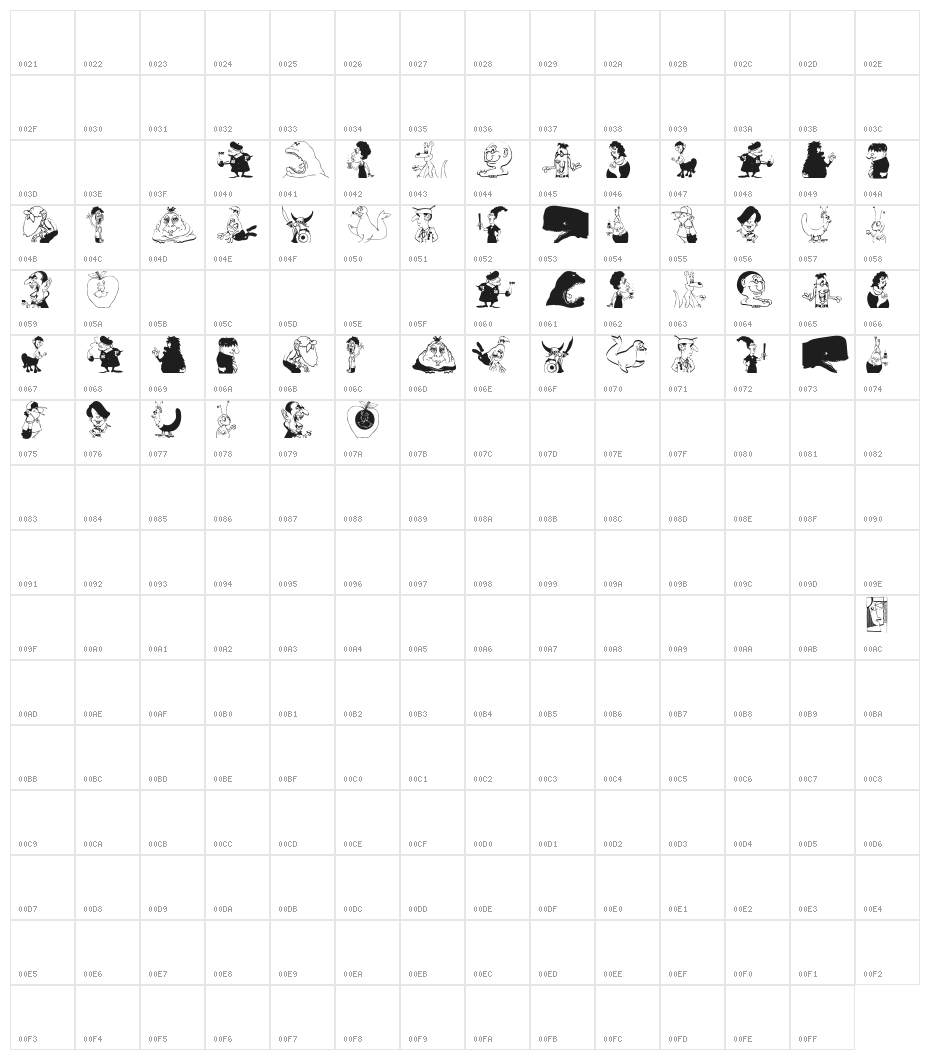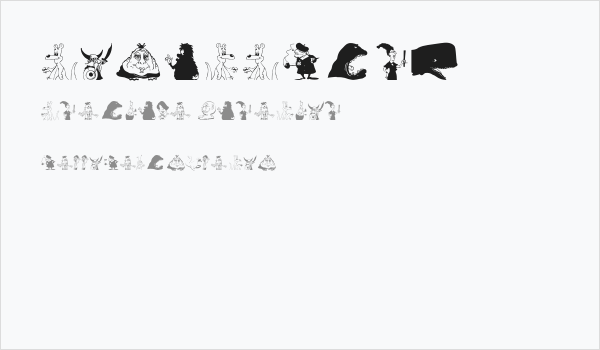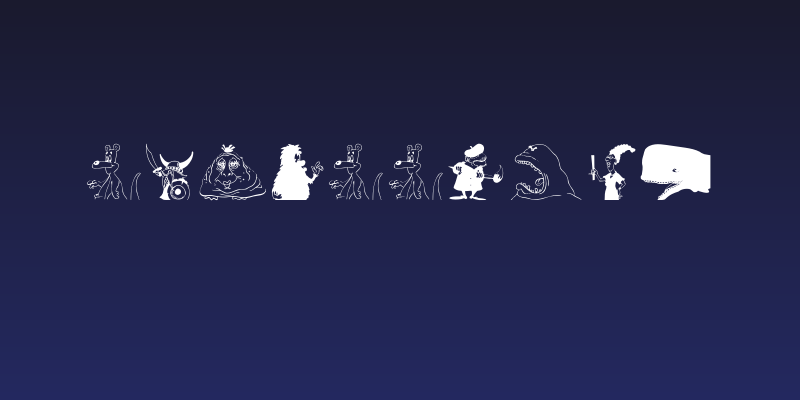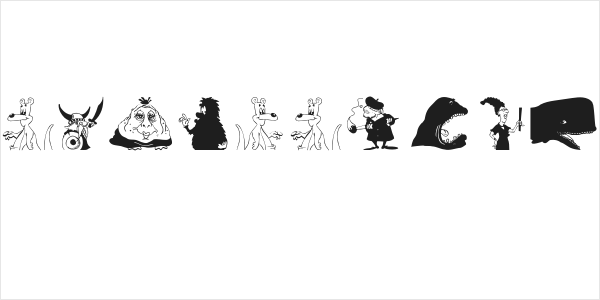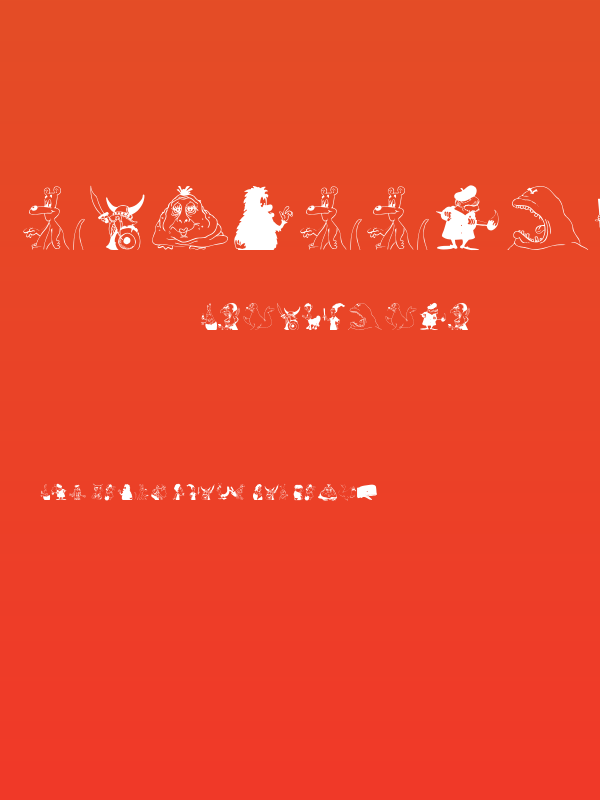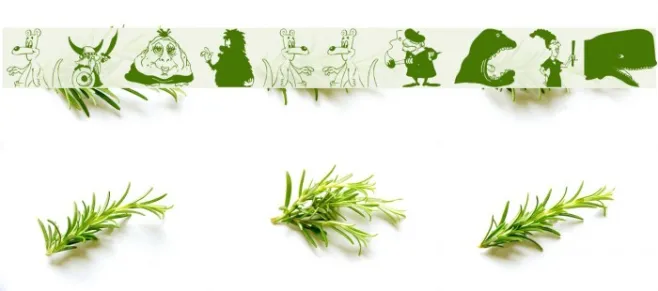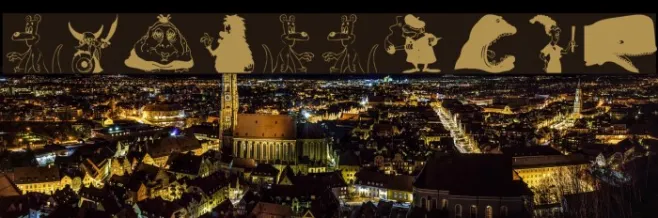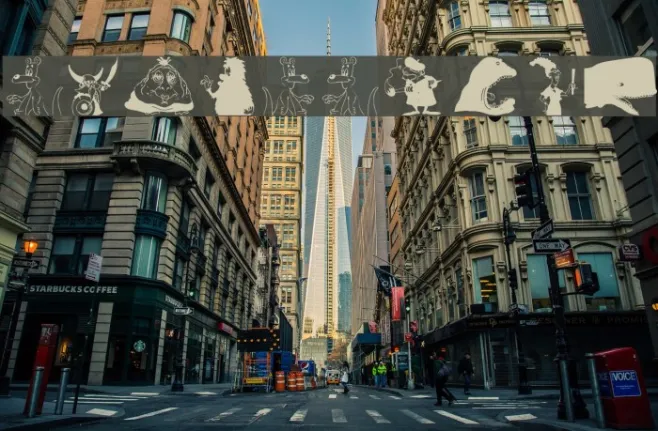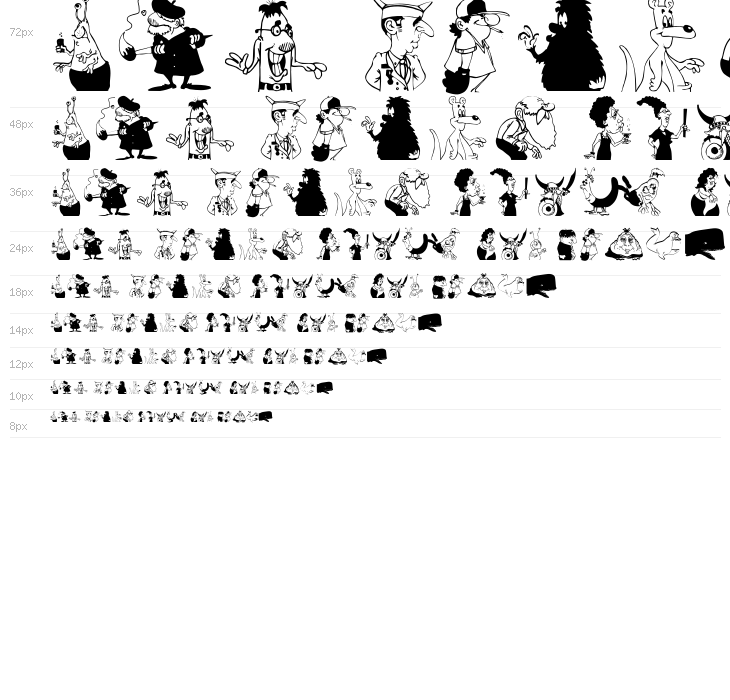
ComicChars Font
ComicChars Description
A playful and whimsical collection of hand-drawn cartoon characters, each representing a different letter, number, or symbol, with exaggerated features and humorous expressions. The style is highly illustrative and decorative, focusing on visual storytelling rather than traditional typographic forms.
| Overall Style | Decorative, Whimsical, Playful |
| Use Case | Display, Posters, Children’s materials, Comics |
| Proposed Projects | Children’s books, comic strips, party invitations, playful branding, educational materials, posters. |